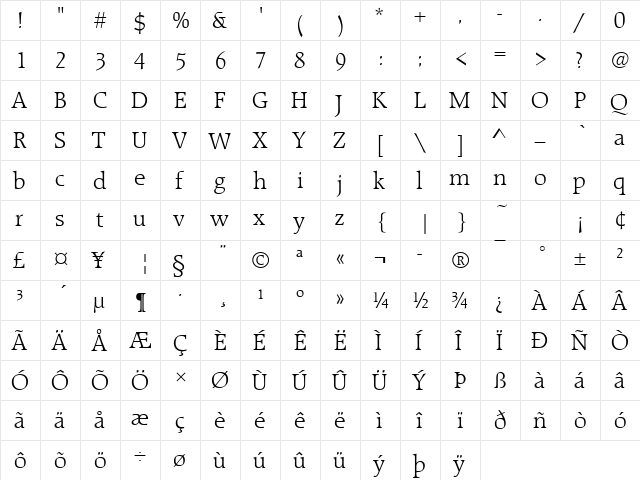
RaleighDLig Regular
Design Context for RaleighDLig Typeface
RaleighDLig is a composed and adaptable typeface that performs quietly and consistently across a wide range of design contexts.